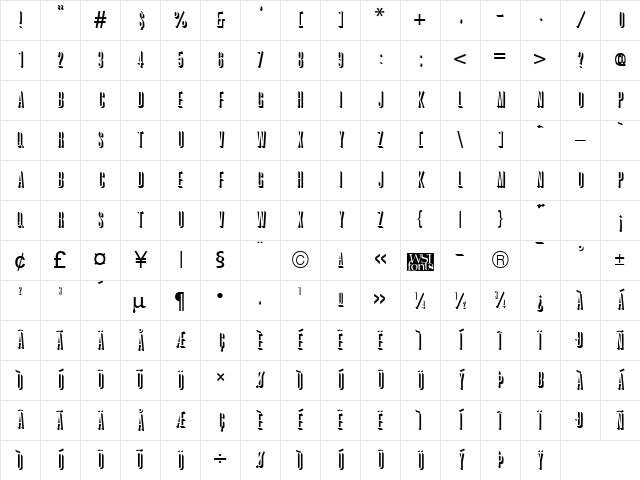
3-DGreatRelief Regular
Design Context for 3-DGreatRelief
3-DGreatRelief is a composed and adaptable typeface that performs quietly and consistently across a wide range of design contexts.